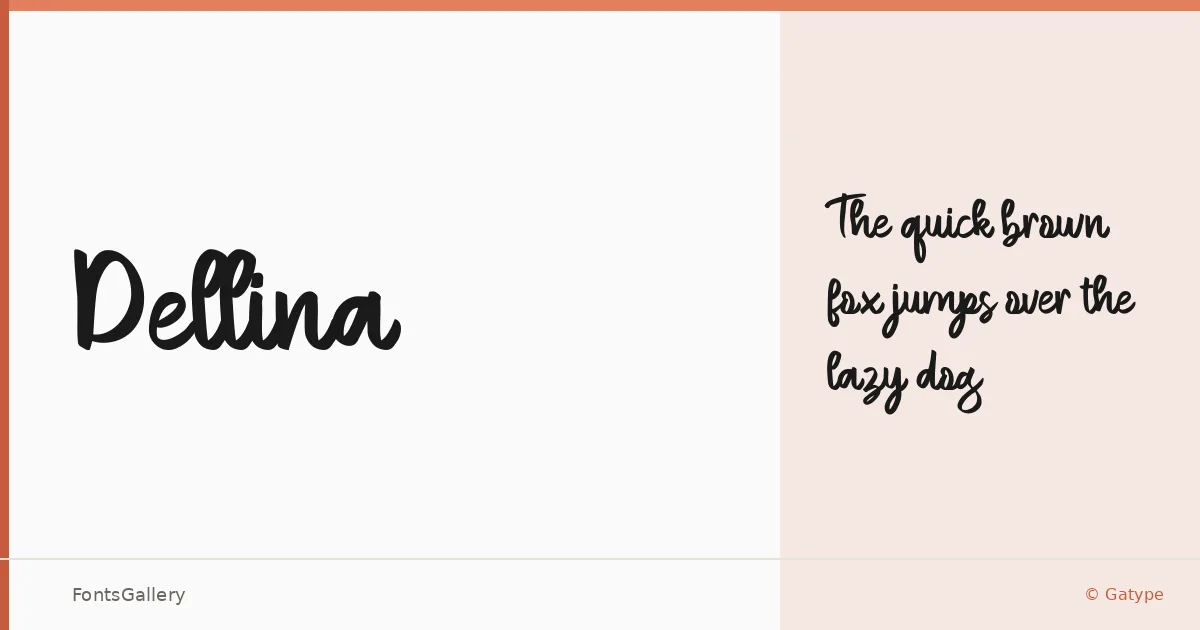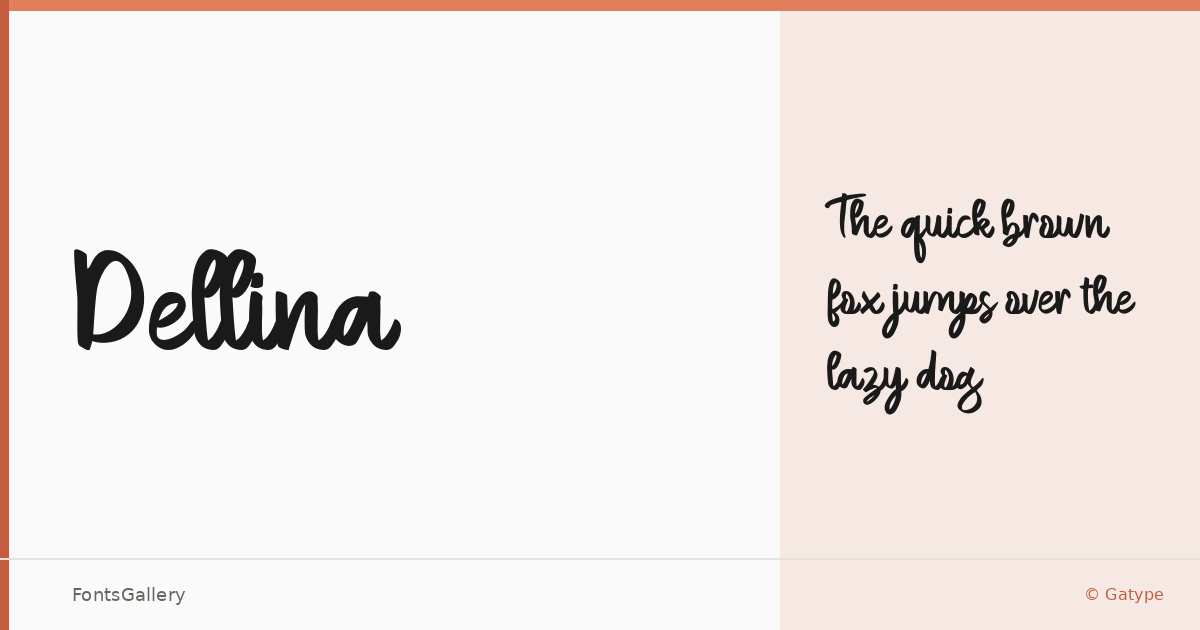
About Dellina Font
There is a particular looseness to this script — the kind that reads as effortless rather than careless, with strokes that lift and connect the way handwritten letters do when the hand is relaxed and confident. Dellina was drawn by Khaidir for Gatype and is available as a single Regular weight in both TTF and OTF formats.
This is a handwritten face that sits at the intersection of elegant and playful, leaning romantic in its overall feeling without becoming overwrought. The single Regular cut is deliberately expressive — the kind of letterform where individual character shapes carry enough personality that a second weight would only crowd things. It covers the Latin script, keeping the focus tight and the execution clean.
It earns its keep on wedding stationery, invitation cards, and greeting cards where a handcrafted touch is the whole point, and it carries that same warmth into branding and social media contexts where personality matters. For contrast and balance, it pairs well with cooler, more structured companions — Canela, Helvetica, ABC Arizona, Asap, and Adobe Caslon Pro all work with its rhythm in different ways depending on how formal you need the overall system to feel.